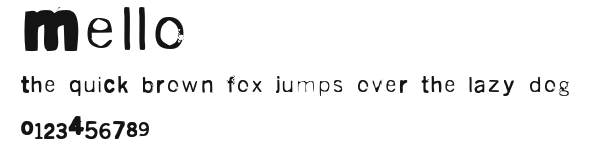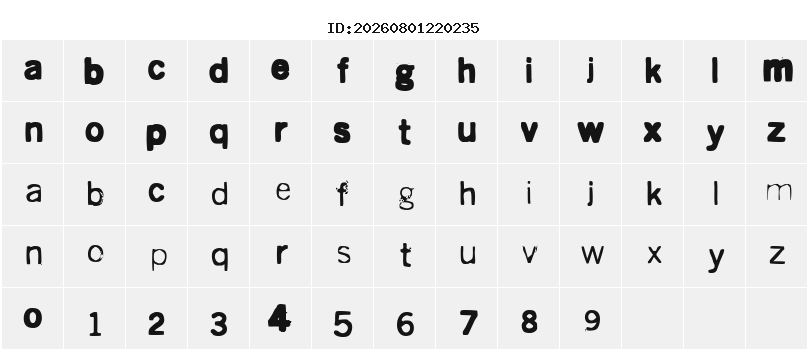
• Font Name: Mello
• Font ID: Altsys Fontographer 4.1 Mello Medium
• Full Font Name: Mello Medium
• Version: Altsys Fontographer 4.1 6/14/99
• PostScript Name: MelloMedium
About Mello.ttf
Mello.ttf is a modern, elegant sans-serif font designed for ultimate readability and visual harmony. Perfect for branding, headlines, web design, and print materials.